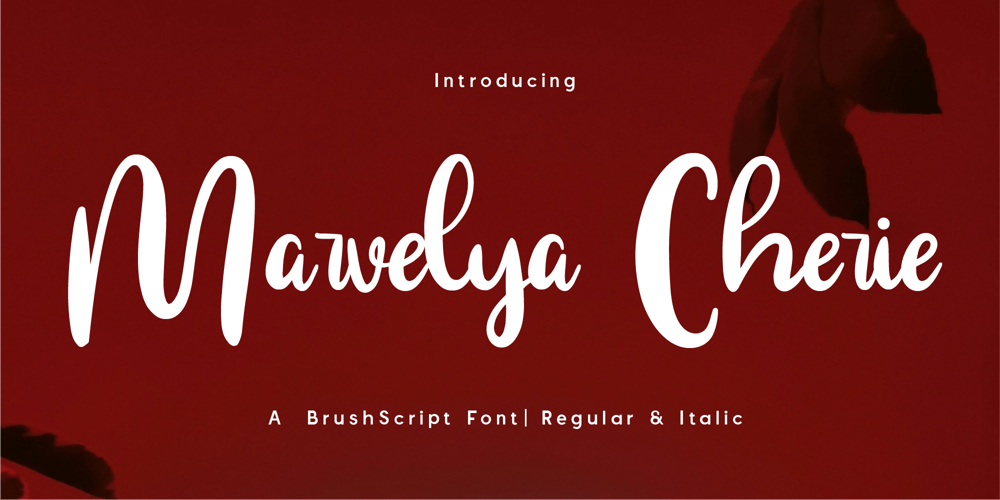
CF Marvelya Cherie
CF Marvelya Cherie font
CF Marvelya Cherie Font Family was designed by Gilang Mei Nugraha, Frederik Aristaputra and published by Creatifont Studio. CF Marvelya Cherie contains 2 styles and family package options. Marvelya Cherie – A Charming & Expressive Brush Script FontIntroducing Marvelya Cherie, a bold and sophisticated brush script font that blends energy, elegance, and artistic flair into every stroke. Designed with smooth curves and fluid motion, this typeface radiates warmth and personality, making it the perfect choice for branding, packaging, invitations, advertising, and stylish editorial projects.Available in Regular & Italic styles, Marvelya Cherie offers versatility and expressive charm, making it easy to create eye-catching logos, elegant social media graphics, and beautifully handwritten designs. Whether you need a font for a luxury beauty brand, fashion label, or heartfelt greeting card, this script delivers a stunning balance of boldness and grace.Why Choose Marvelya Cherie?🖌 Elegant Brush Script: A dynamic blend of bold strokes and smooth curves.🎭 Versatile Styles: Comes in Regular & Italic for more design flexibility.💄 Perfect for Stylish Branding: Ideal for fashion, beauty, and luxury industries.🎨 Handwritten with Character: Adds a personal and artistic touch to any project.Make your designs stand out with confidence and charm—Download Marvelya Cherie today and bring expressive beauty to your work! ✨🖋A SUMMARY OF WHAT’S INCLUDED:- Standard Character A-Z, a-z, 0-9, Punctuation & symbols- Regular and Italic- Works on PC & Mac- Simple installation- Accessible in Adobe Creative Suite (Ai, Ps, Id, etc.) even work on Microsoft Word.- PUA Encoded Characters – Fully accessible without additional design software.🌟If you come across any issues or notice anything we might have overlooked while using this product, please feel free to reach out to us. We greatly value your feedback as it helps us enhance and refine our products. Thank you!